Discover six premium fonts that help designers create bold, modern, and memorable brand identities.
Typography is one of the most powerful tools in graphic design. Before customers notice a logo’s color palette or icon, they often recognize its typography. The right font instantly communicates professionalism, innovation, trust, and personality. Whether you’re designing for a startup, technology company, gaming brand, or creative agency, selecting the right typeface can dramatically improve your final design.
Futuristic fonts have become one of the biggest design trends in recent years. Their clean geometric shapes, bold letterforms, and modern aesthetics make them ideal for logos, website headers, social media graphics, posters, and digital branding. Companies in AI, SaaS, automotive, cybersecurity, gaming, and consumer technology frequently use futuristic typography to communicate innovation and forward-thinking.
In this guide, we’ll explore six excellent futuristic fonts featured in our collection:
- Akony
- Panchang
- Grifter
- Vudotronic
- Eurostile
- Nexa
We’ll also share practical tips for choosing the right font, pairing it with complementary typography and color palettes, and creating stronger brand identities.
Why Futuristic Fonts Are So Popular
Modern businesses compete in increasingly crowded markets. A distinctive typeface helps brands become instantly recognizable while reinforcing their visual identity.
Futuristic fonts typically feature:
- Bold geometric construction
- Minimalist appearance
- Clean spacing
- High readability
- Strong visual impact
- Professional aesthetics
Unlike decorative fonts that quickly become outdated, modern geometric fonts often remain timeless because they emphasize simplicity and clarity.
If you’re building a new brand in 2026, investing in high-quality typography is one of the smartest design decisions you can make.
1. Akony
Akony is a bold futuristic display font with sharp geometric construction. It immediately creates a premium, technology-focused appearance that works exceptionally well for logos.
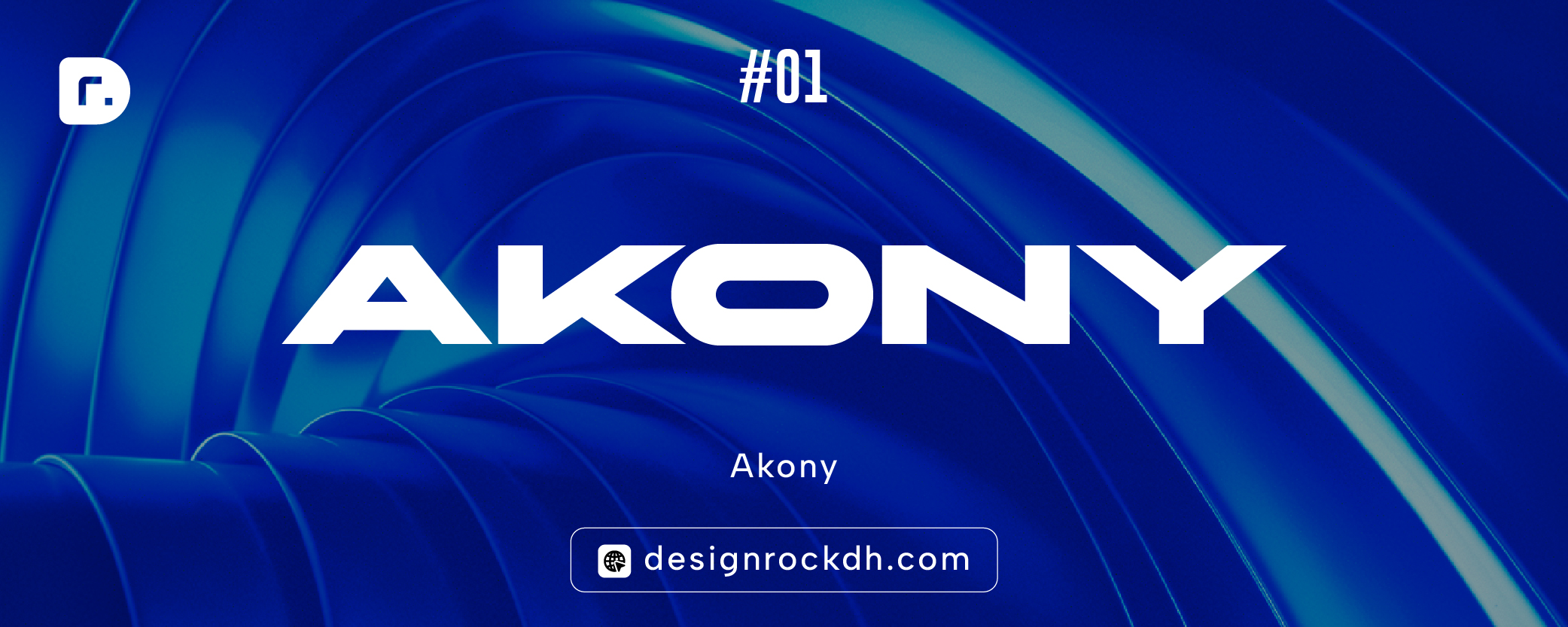
Best For
- AI startups
- Technology companies
- SaaS businesses
- Mobile apps
- Electronics
- Premium branding
Why Designers Love It
Akony features powerful uppercase letterforms that remain highly readable while looking sophisticated. It performs particularly well on dark backgrounds with minimal layouts.
2. Panchang
Panchang combines bold proportions with modern geometric styling, making it perfect for impactful branding.
Its wide characters create excellent balance across headlines and logo designs.
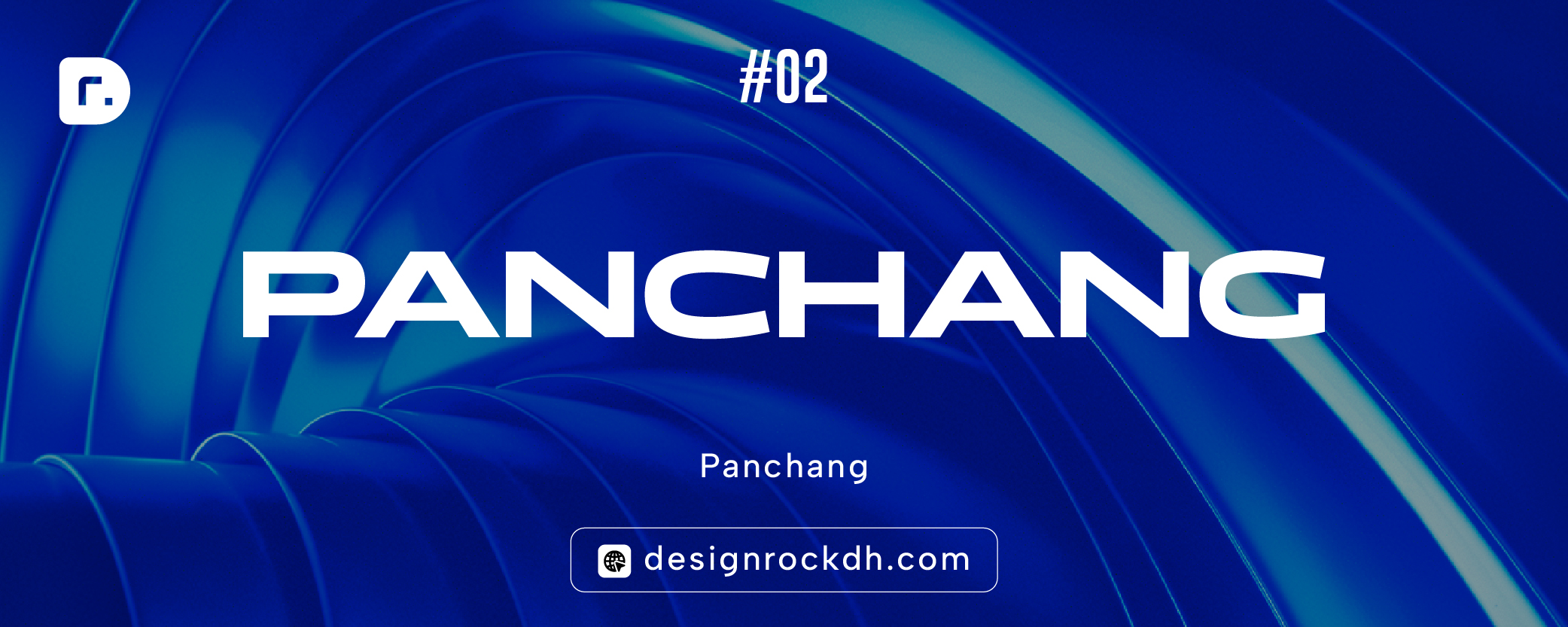
Ideal Uses
- Fashion brands
- Editorial headlines
- Posters
- Website hero sections
- Startup logos
- Packaging design
Panchang is especially useful when you want typography to become the primary visual element.
3. Grifter
Grifter is energetic, bold, and attention-grabbing.
If your project needs maximum impact, this font delivers excellent visibility across both print and digital media.
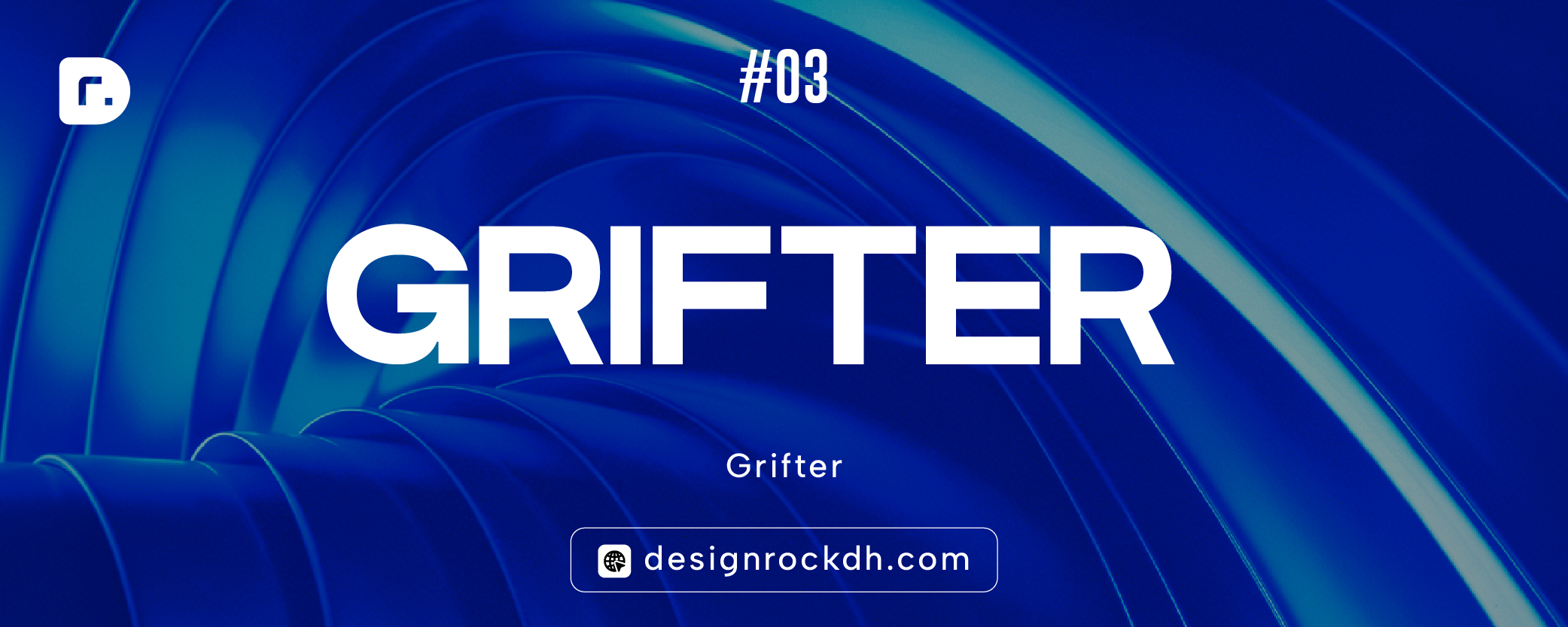
Best For
- Gaming logos
- Sports branding
- Esports teams
- YouTube thumbnails
- Social media graphics
- Event posters
Its heavy construction makes it ideal for designs that need to stand out immediately.
4. Vudotronic
Vudotronic brings a unique sci-fi personality inspired by futuristic technology.
Rounded edges combined with geometric construction give it a clean cyber-inspired appearance.
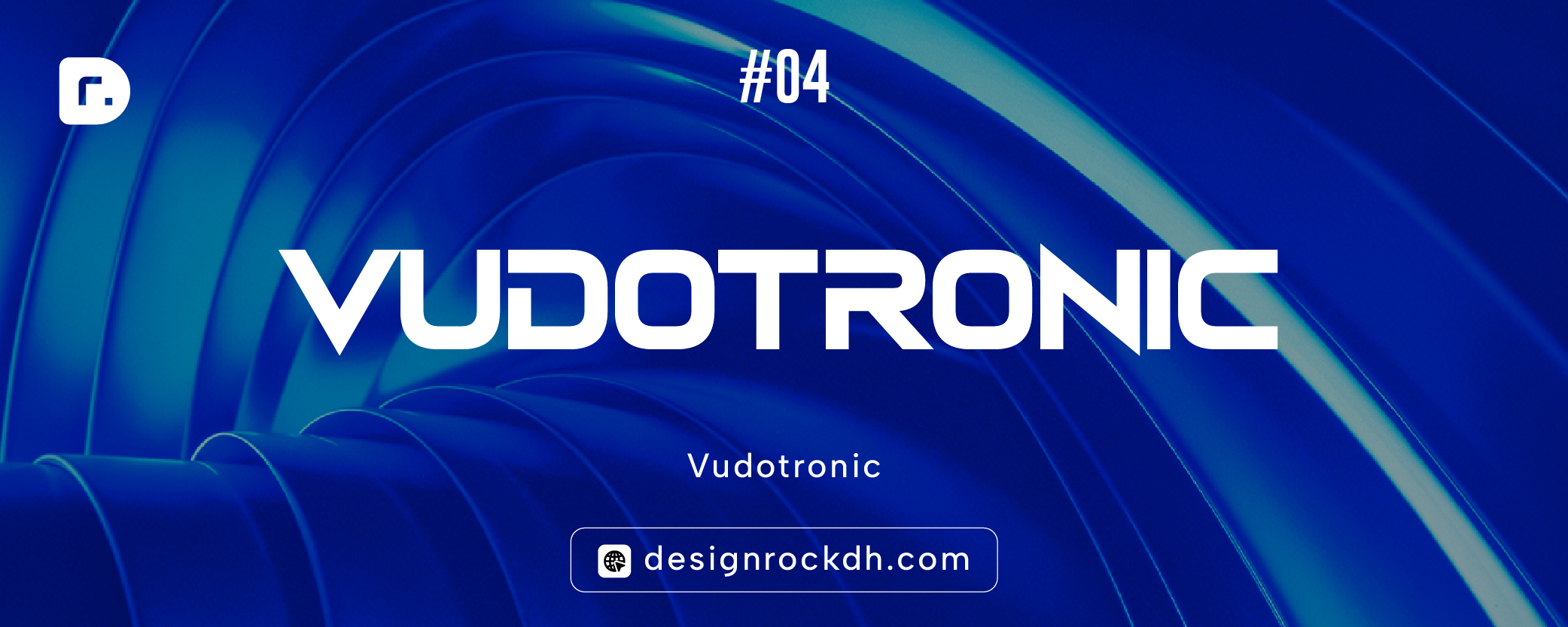
Perfect For
- Robotics
- Space technology
- NFT projects
- AI companies
- Cybersecurity brands
- Futuristic interfaces
If you’re creating a science-fiction inspired brand, Vudotronic is an excellent option.
5. Eurostile
Eurostile is one of the most recognizable geometric fonts ever created.
For decades it has been associated with technology, engineering, transportation, and industrial branding.
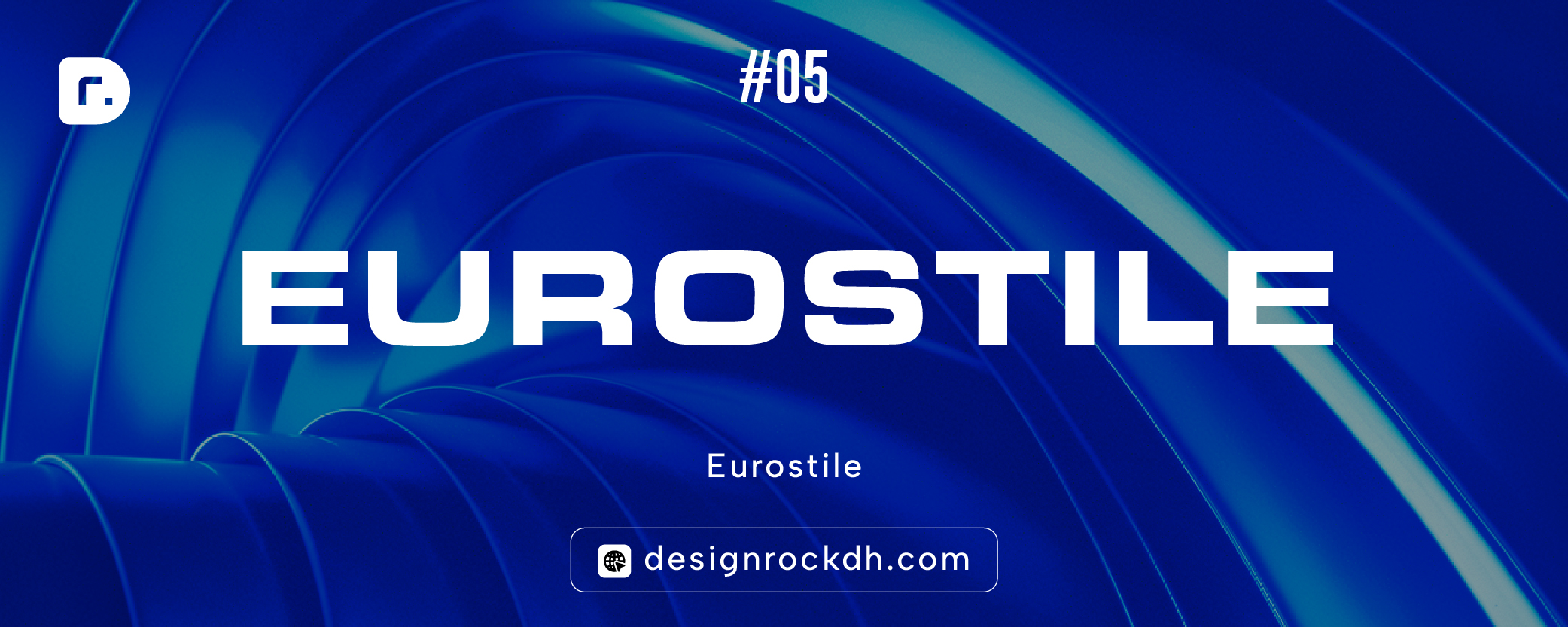
Excellent For
- Automotive companies
- Engineering firms
- Manufacturing
- Architecture
- Industrial design
- Technology brands
Despite being a classic typeface, Eurostile still feels modern thanks to its balanced proportions and clean geometry.
6. Nexa
Nexa is one of the most versatile modern sans-serif fonts available.
Unlike highly decorative display fonts, Nexa performs beautifully across logos, websites, presentations, user interfaces, and marketing materials.
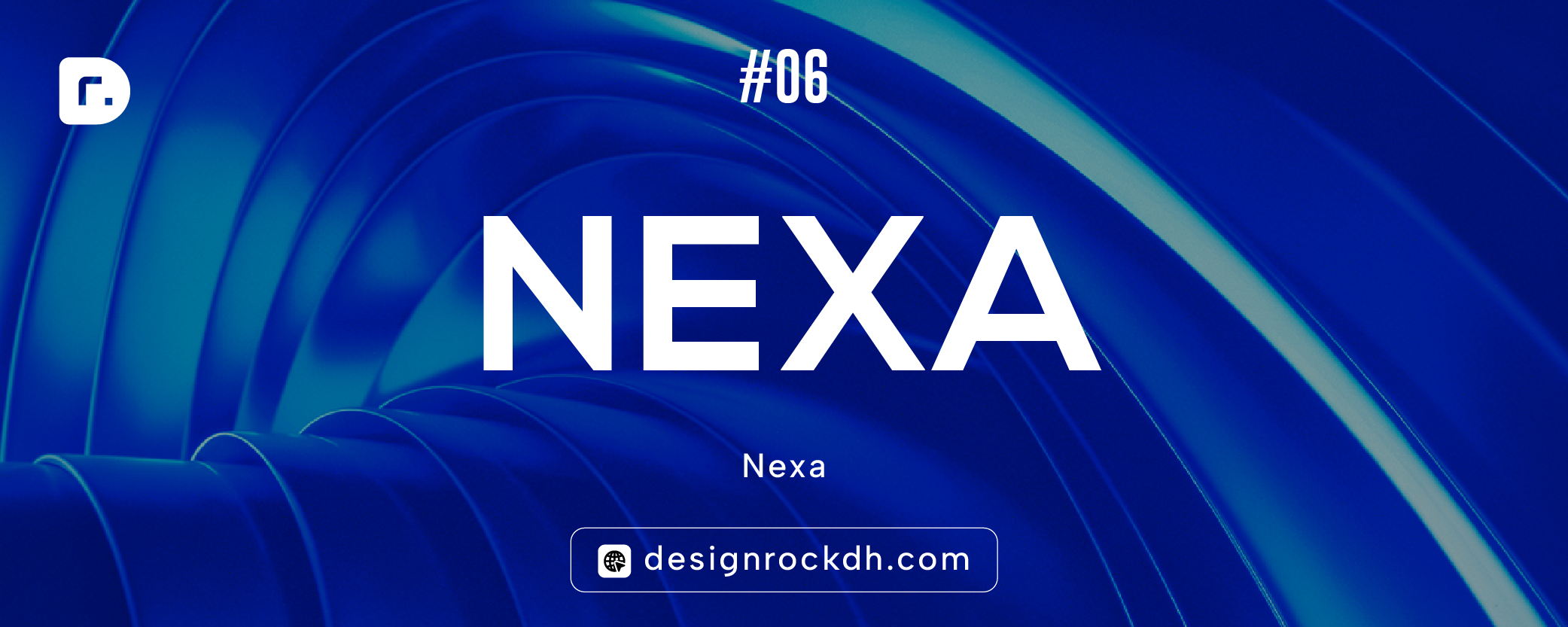
Best Applications
- Brand identities
- Website design
- UI/UX projects
- Corporate branding
- Mobile apps
- Presentations
Its simplicity makes it suitable for almost every design discipline.
Font Comparison
| Font | Style | Best For |
|---|---|---|
| Akony | Futuristic Display | AI, SaaS, Technology |
| Panchang | Bold Modern | Editorial, Fashion, Branding |
Rather than chasing short-lived trends, focus on fonts that combine clarity, versatility, and timeless design. Pair them with thoughtful color palettes, clean layouts, and consistent branding to create identities that stand out in 2026 and beyond.